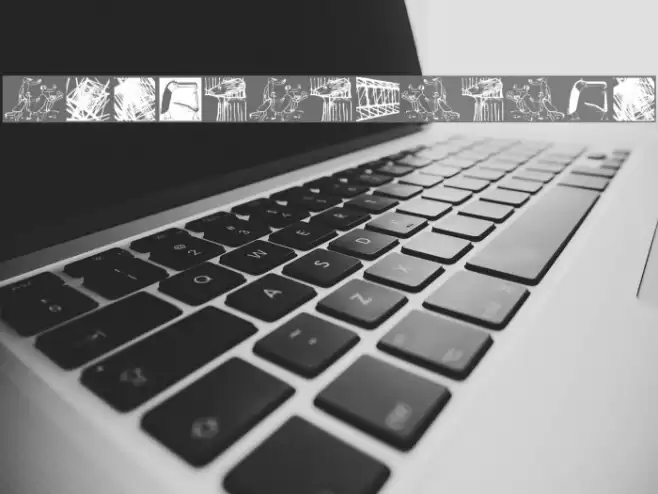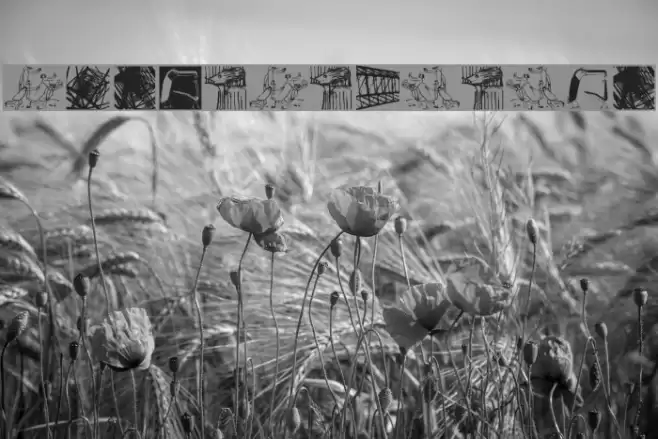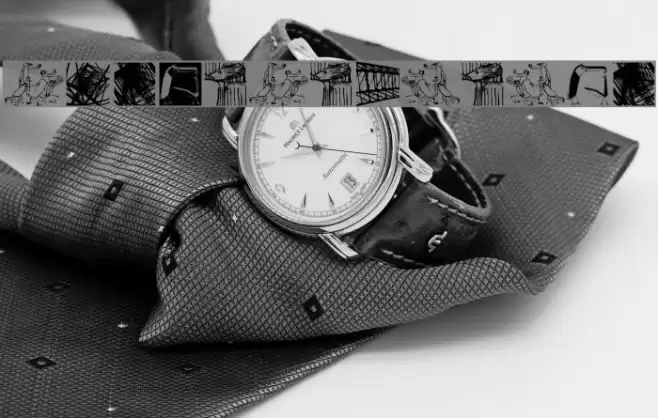
EmastEtcetera Font
EmastEtcetera Description
This is a decorative font that features a series of abstract and illustrative characters. Each character is uniquely designed with a mix of geometric shapes and playful illustrations, creating a whimsical and artistic appearance. The font does not follow traditional letterforms, instead offering a collection of creative and imaginative symbols that resemble a blend of sketches and doodles. The characters are bold and visually striking, making them suitable for artistic and creative projects. The font's unique style makes it stand out, offering a fresh and unconventional approach to typography.
A decorative font with abstract and illustrative characters, perfect for creative projects from Uncategorized fonts.